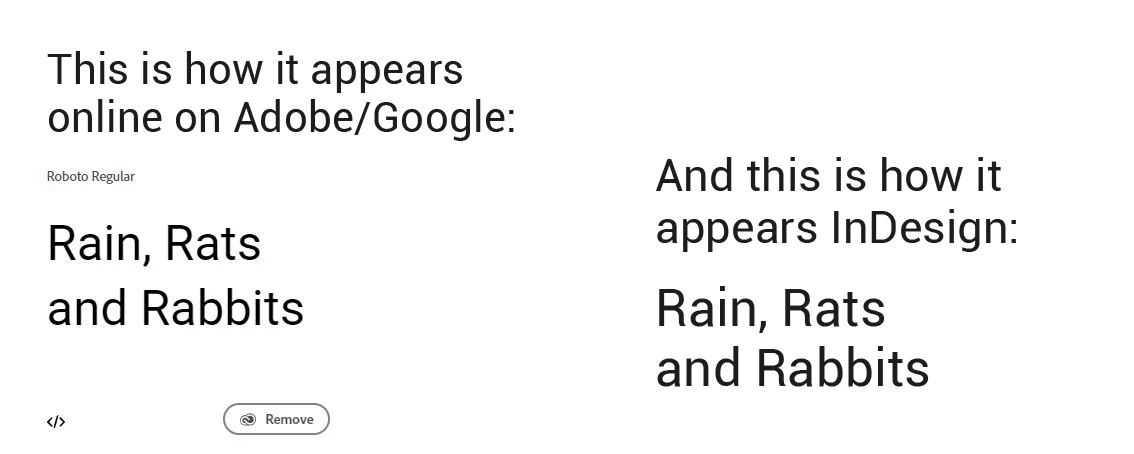
Roboto font looks totally different in InDesign
I'm having the same issue. Downloaded and installed the Roboto family from Google yesterday and noticed that instead, it resembles Franklin Gothic. Deleted those and activated the Roboto family through Adobe.
My screenshot shows how it looks on Adobe/Google website vs InDesign. Why is this?